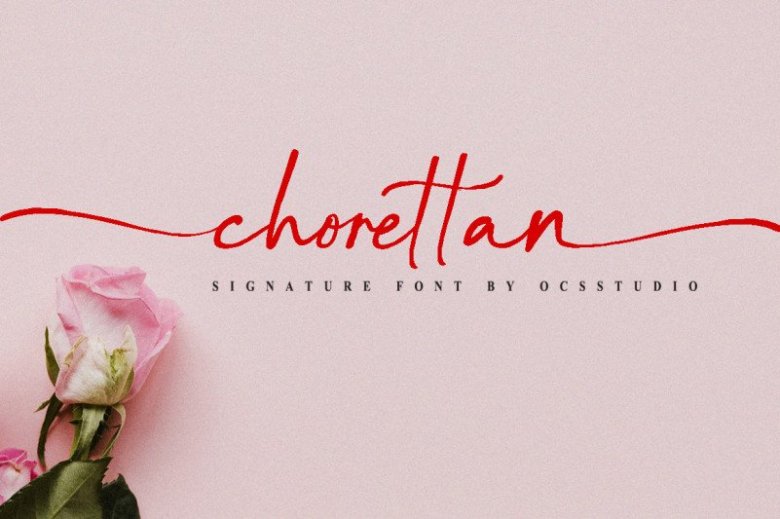
Chorettan Signature Font
This elegant Chorettan Signature Font is made with a hand stroke. This is perfect for branding, wedding invitations, cards, social media, or maybe for your logo products, and also websites.